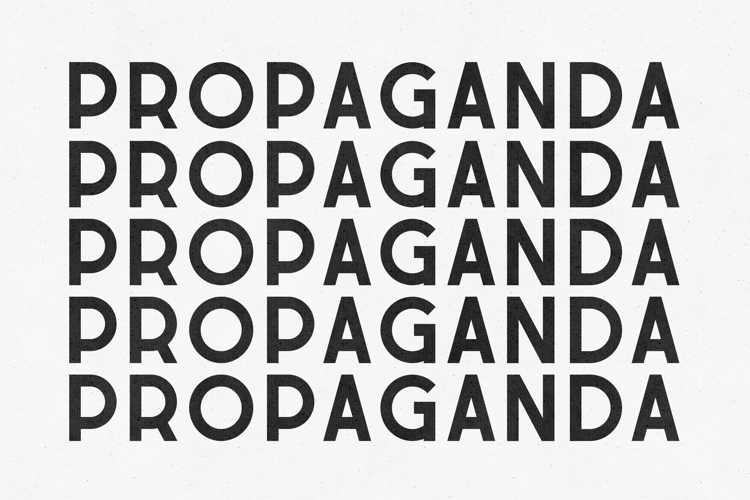
Propaganda Sans Serif Bold Modern Minimalist
Propaganda is a bold modern sans serif font designed to make a strong visual impact. With its clean geometry, heavy weight, and confident structure, it delivers a powerful presence across any design.
Inspired by contemporary editorial and poster design, Propaganda is perfect for projects that demand attention and clarity. Its minimalist yet assertive style makes it highly versatile for both branding and large-scale typography.
• Bold geometric structure
• Strong display performance